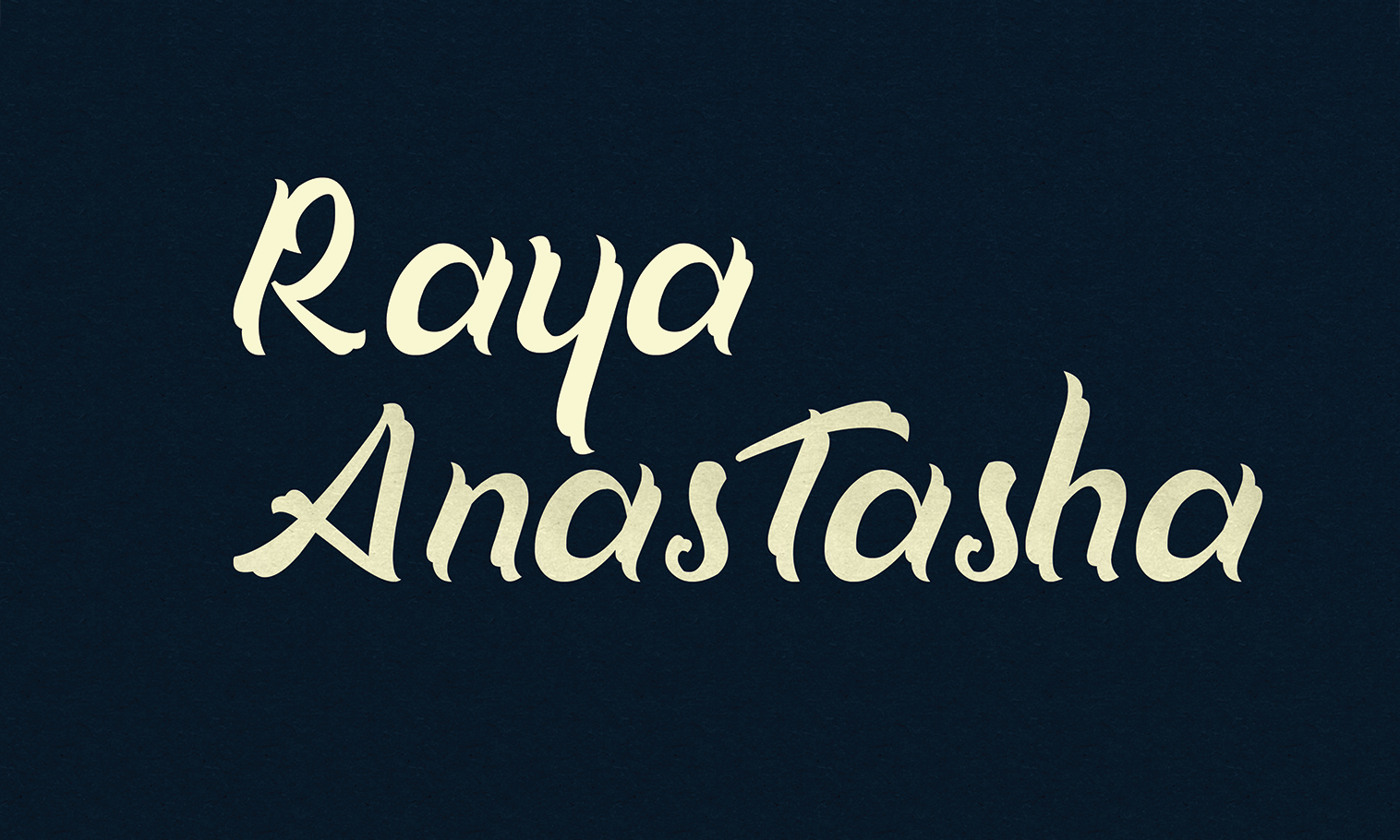
Xavia Script Font
It’s a script type font without a connection in every letter, making it look new and look fresher. The sketch is made with pencil strokes on paper making this font has the character of the creator.